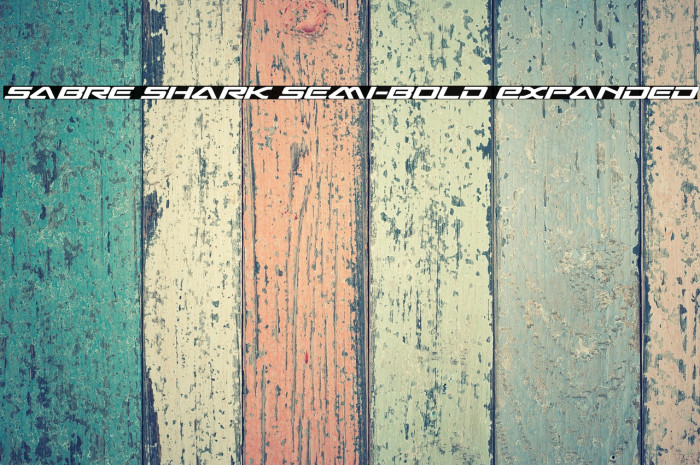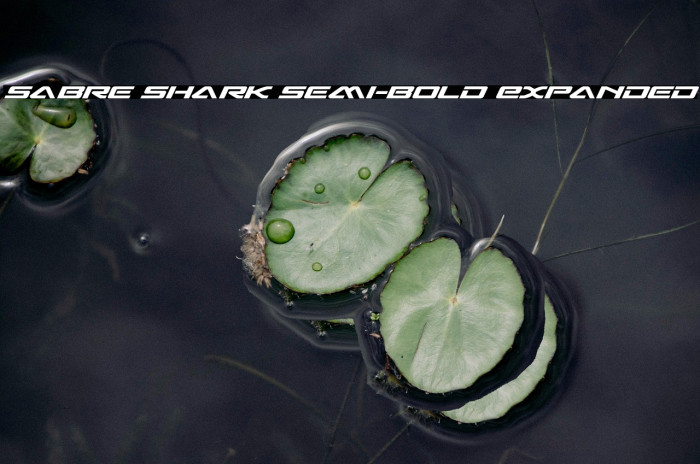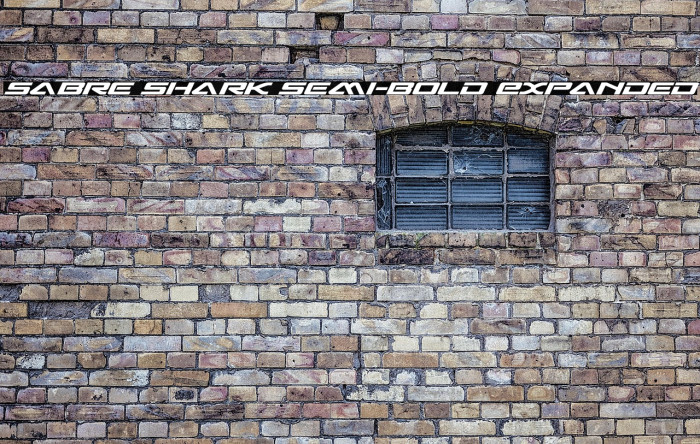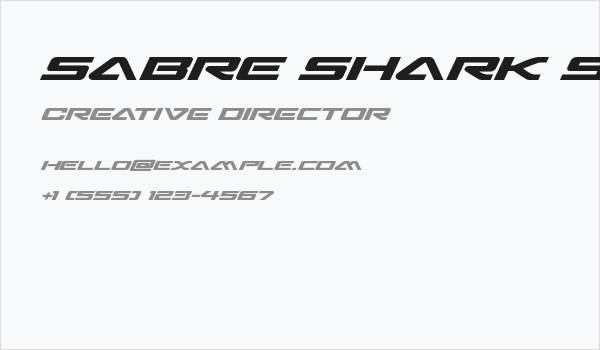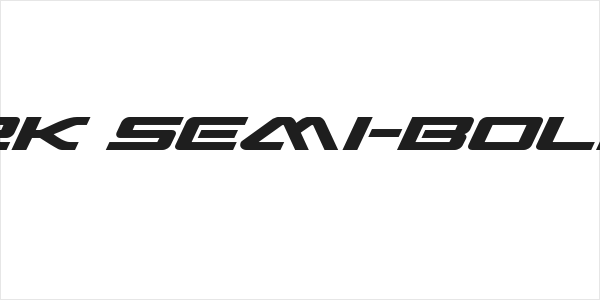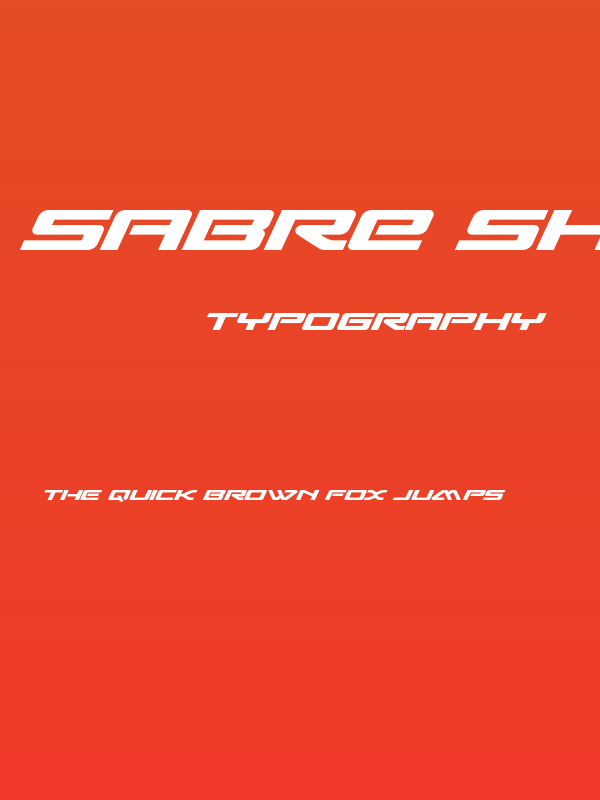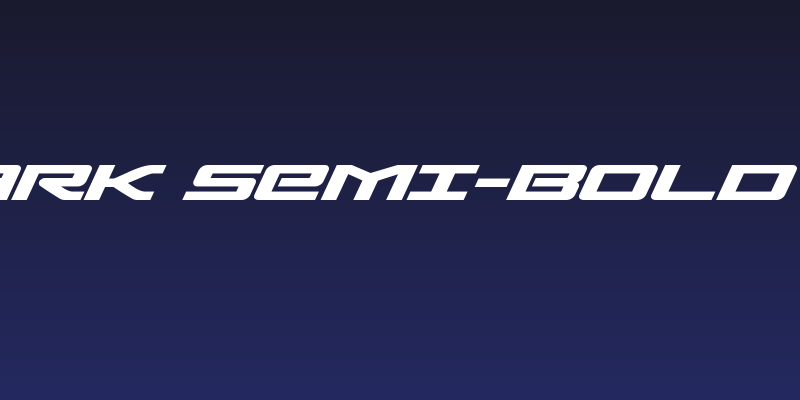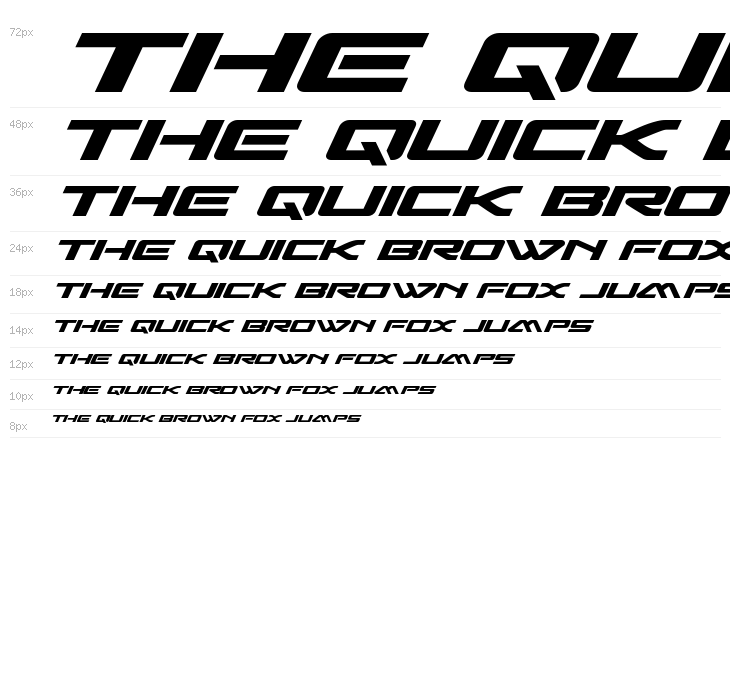
Sabre Shark Semi-Bold Expanded Font
Sabre Shark Semi-Bold Expanded Description
This font features a bold, futuristic design with sharp, angular lines and a distinct slant, giving it a dynamic and aggressive appearance. The characters are expanded, providing a sense of speed and movement, reminiscent of high-tech or sci-fi themes. The uppercase and lowercase letters maintain a consistent style, with the lowercase mirroring the uppercase in form. The numerals and special characters are designed to match the overall aesthetic, ensuring uniformity across all glyphs. The font's unique style makes it suitable for projects that require a modern and edgy look.
| Overall Style | Futuristic, Modern |
| Proposed Projects | Ideal for sci-fi movie posters, video game titles, technology branding, and sports team logos. |